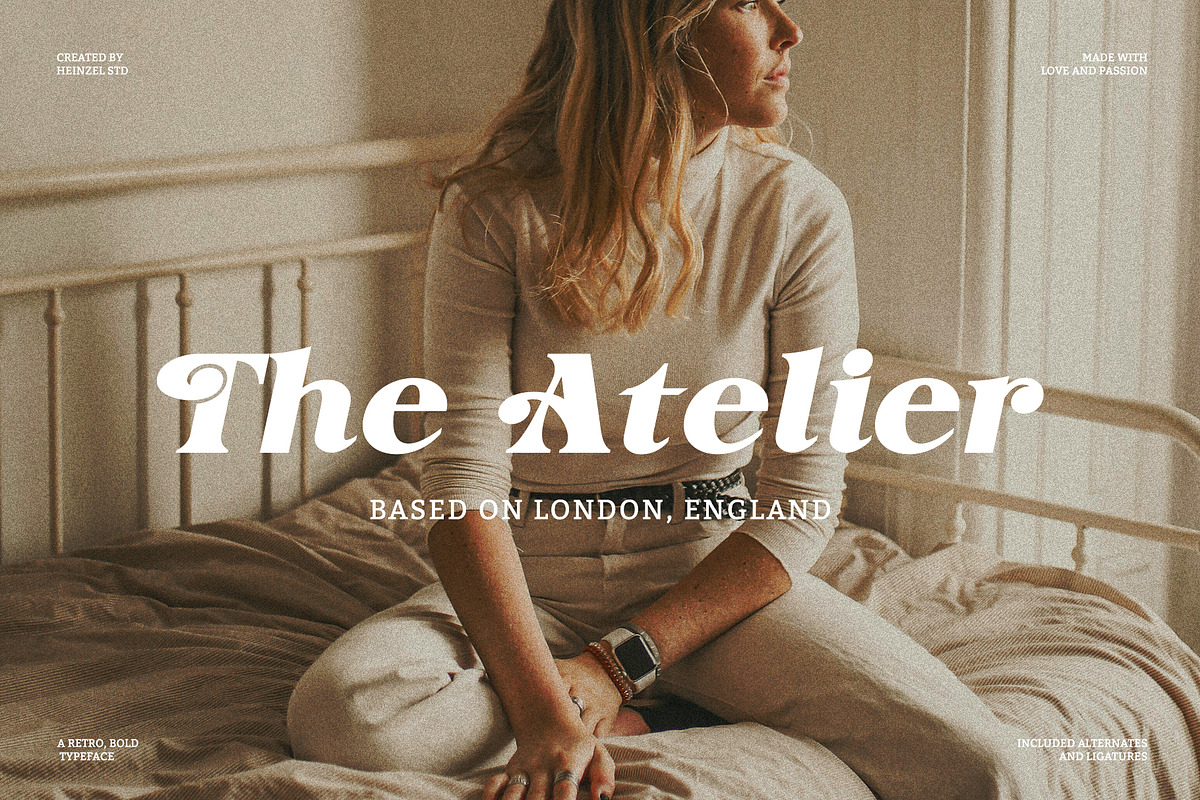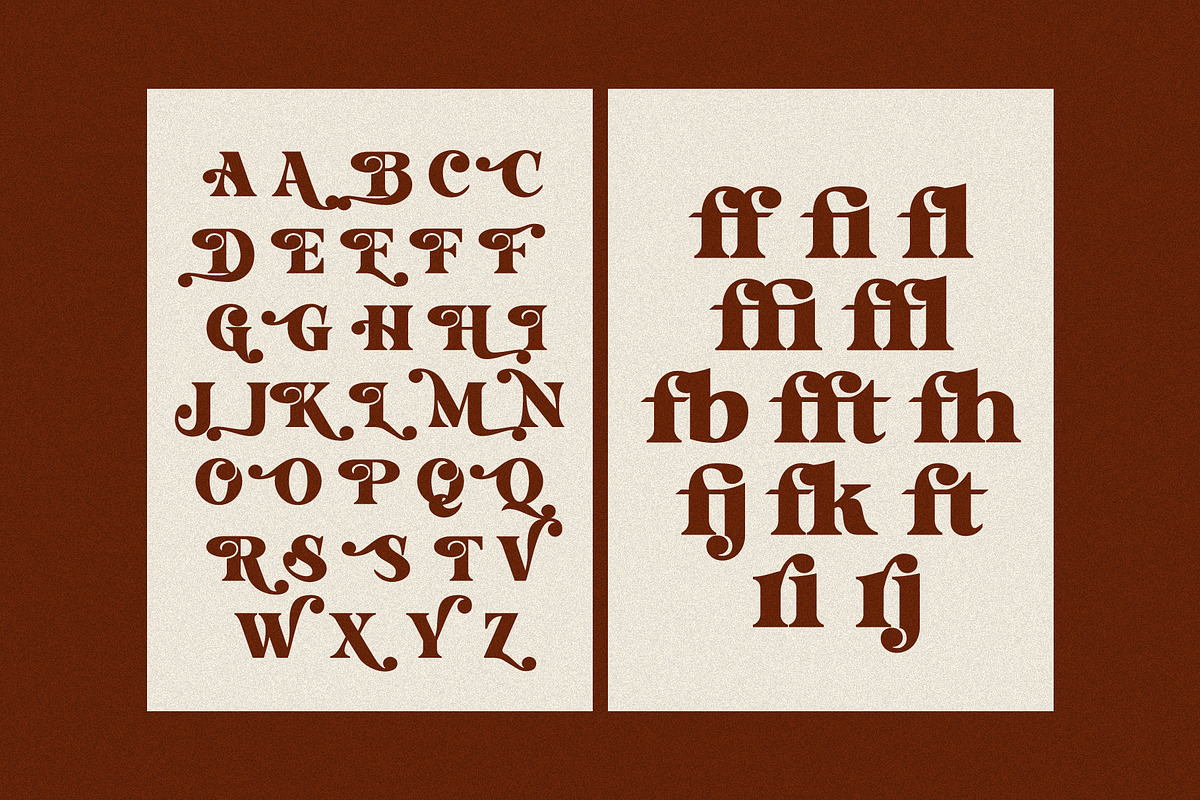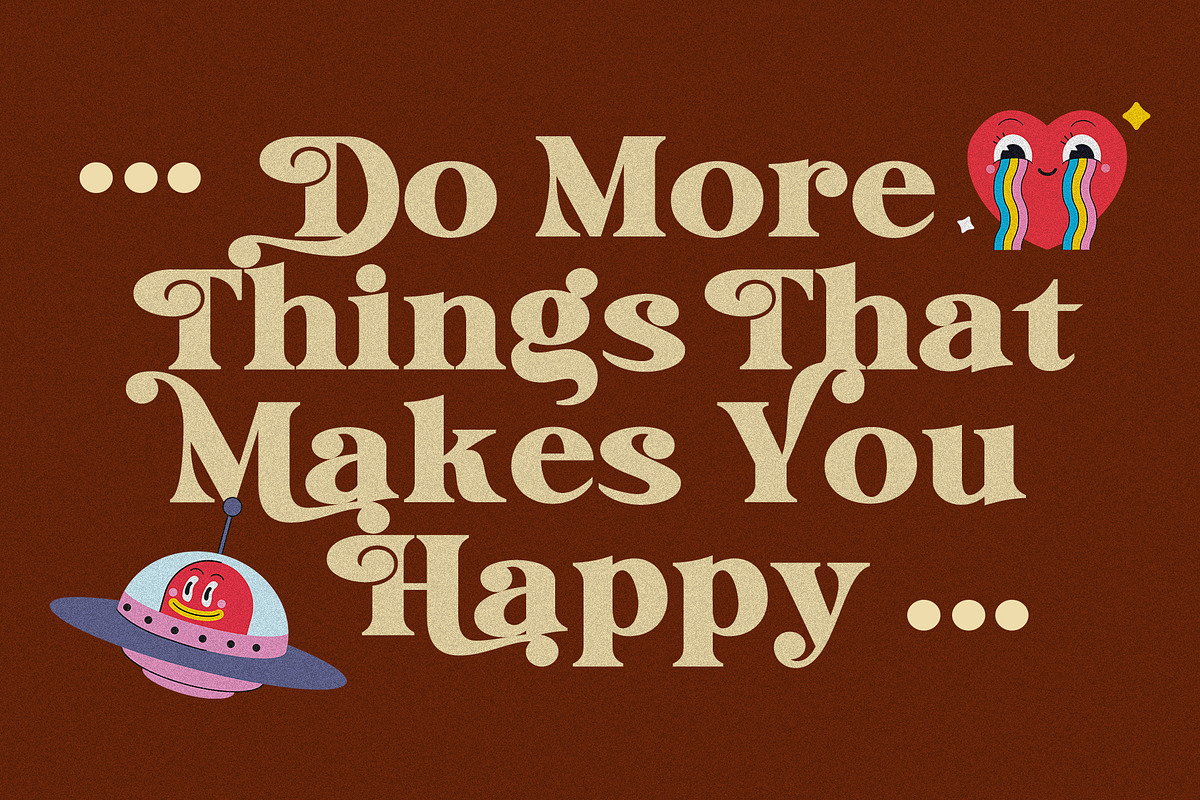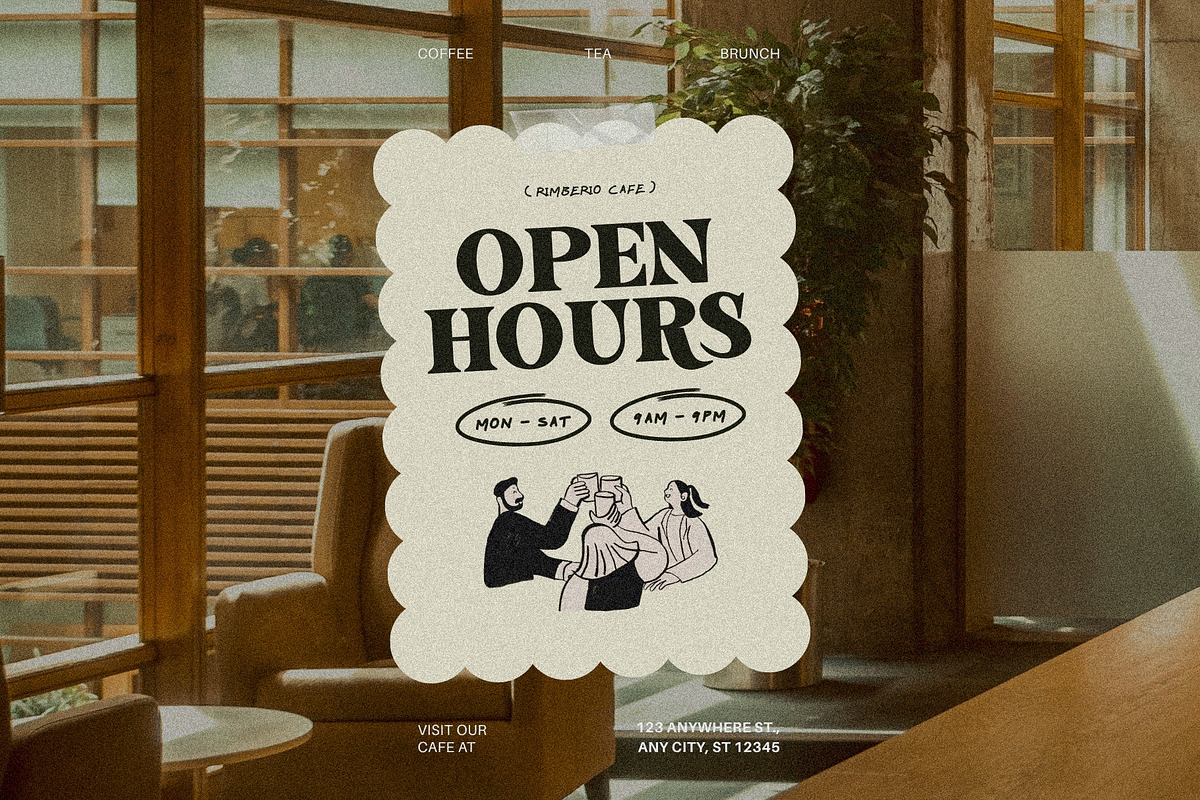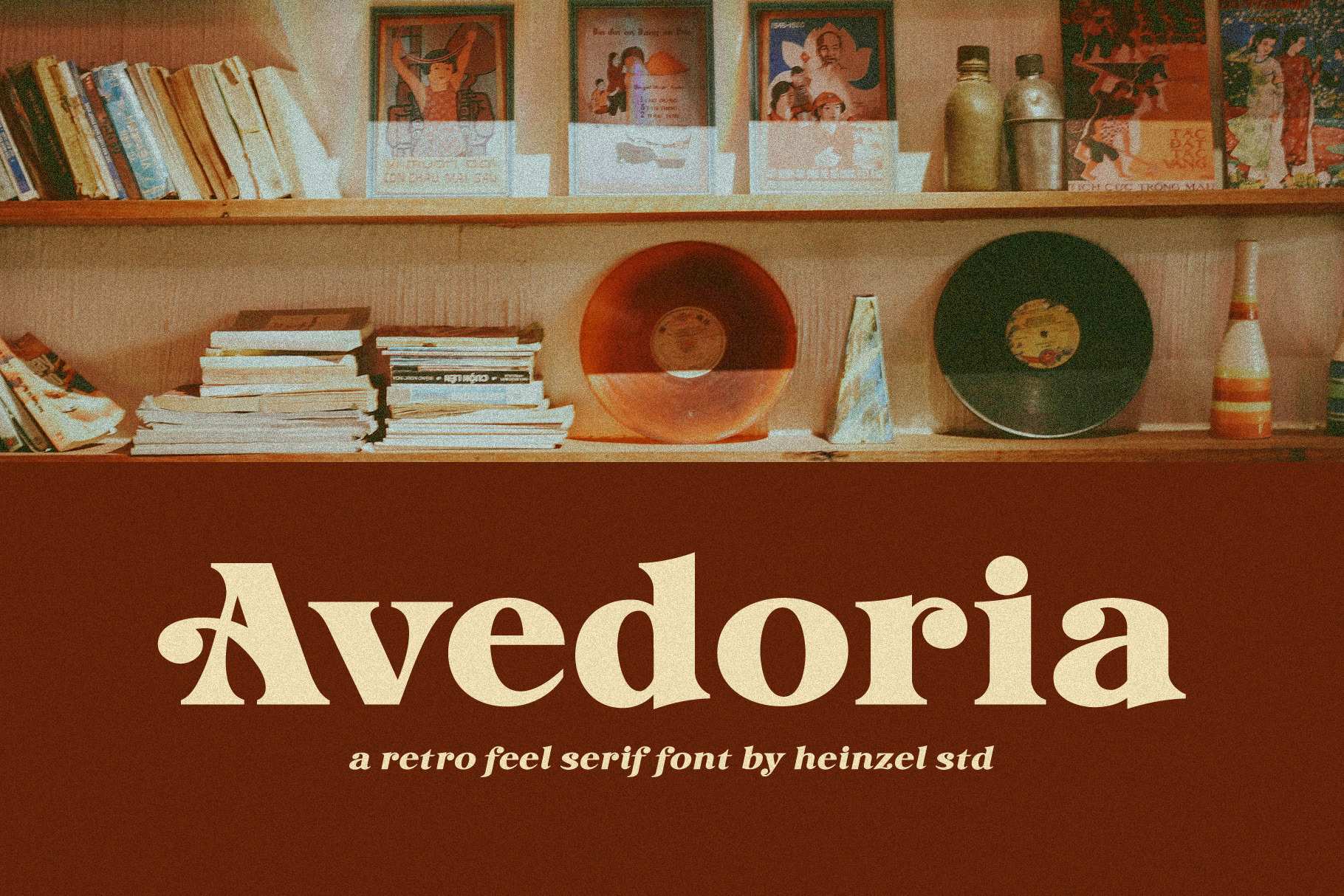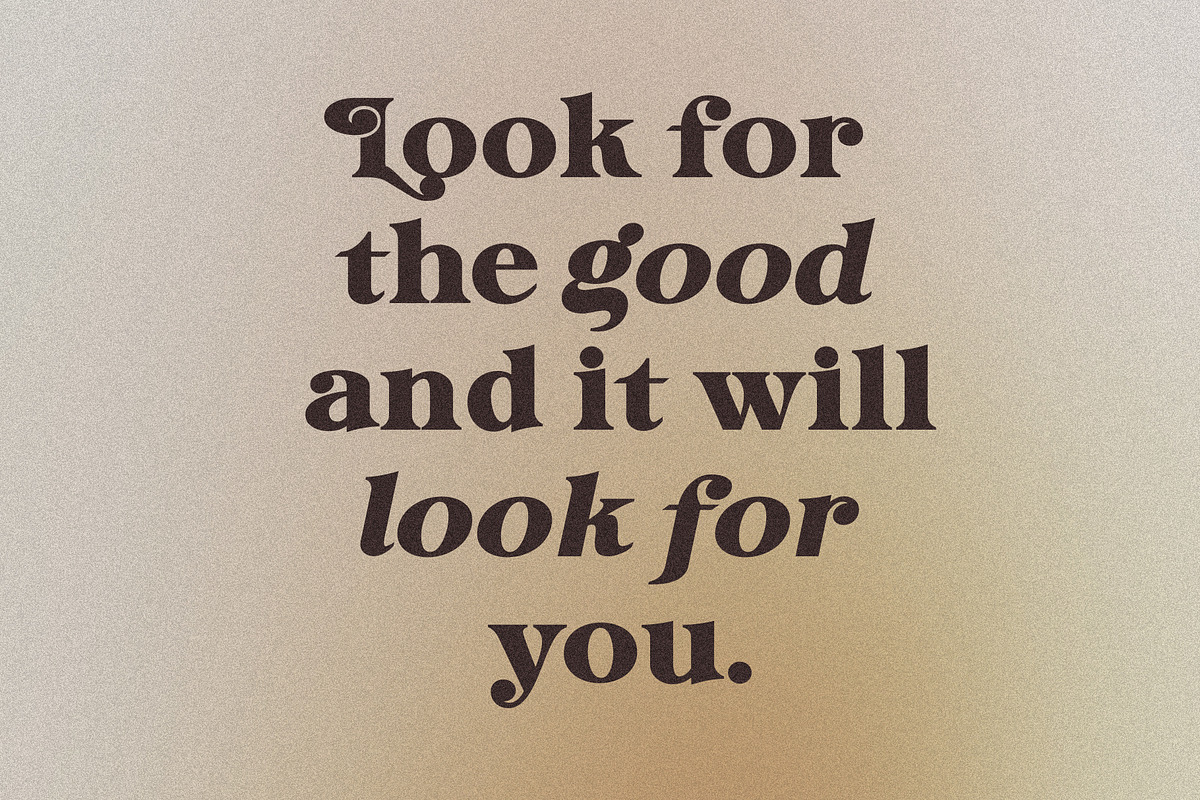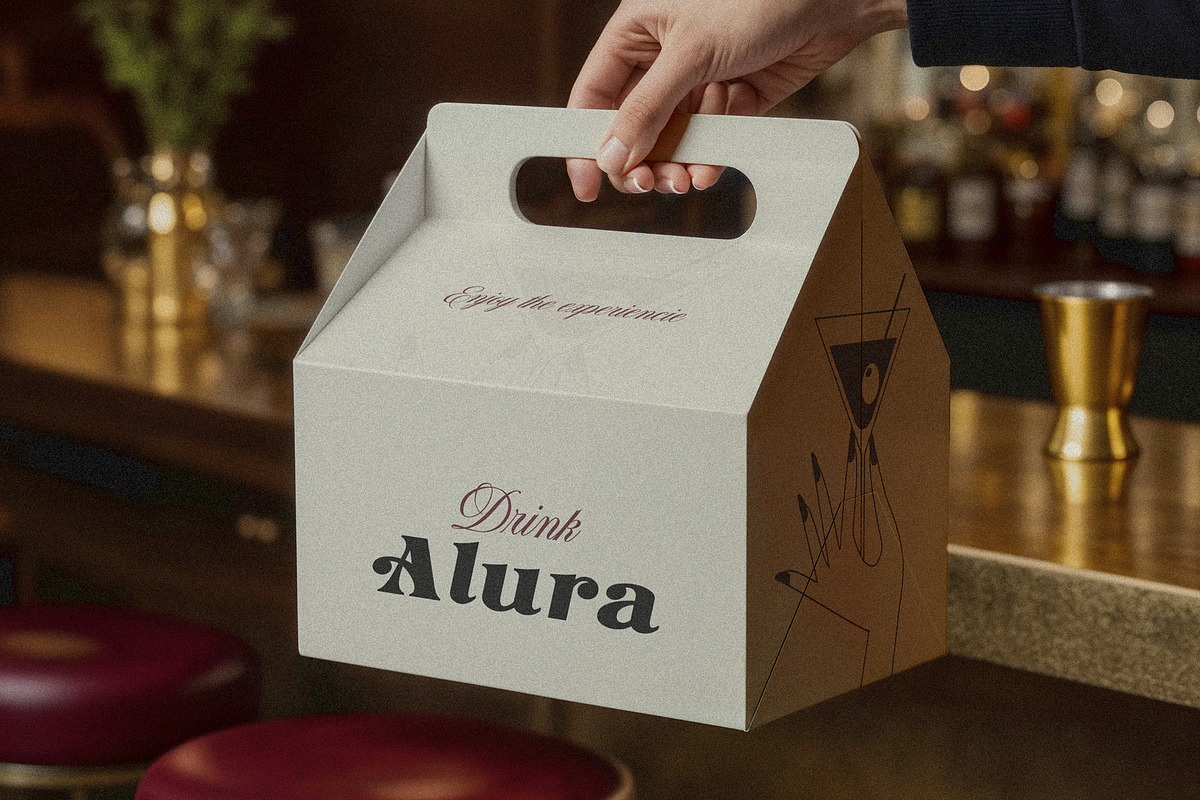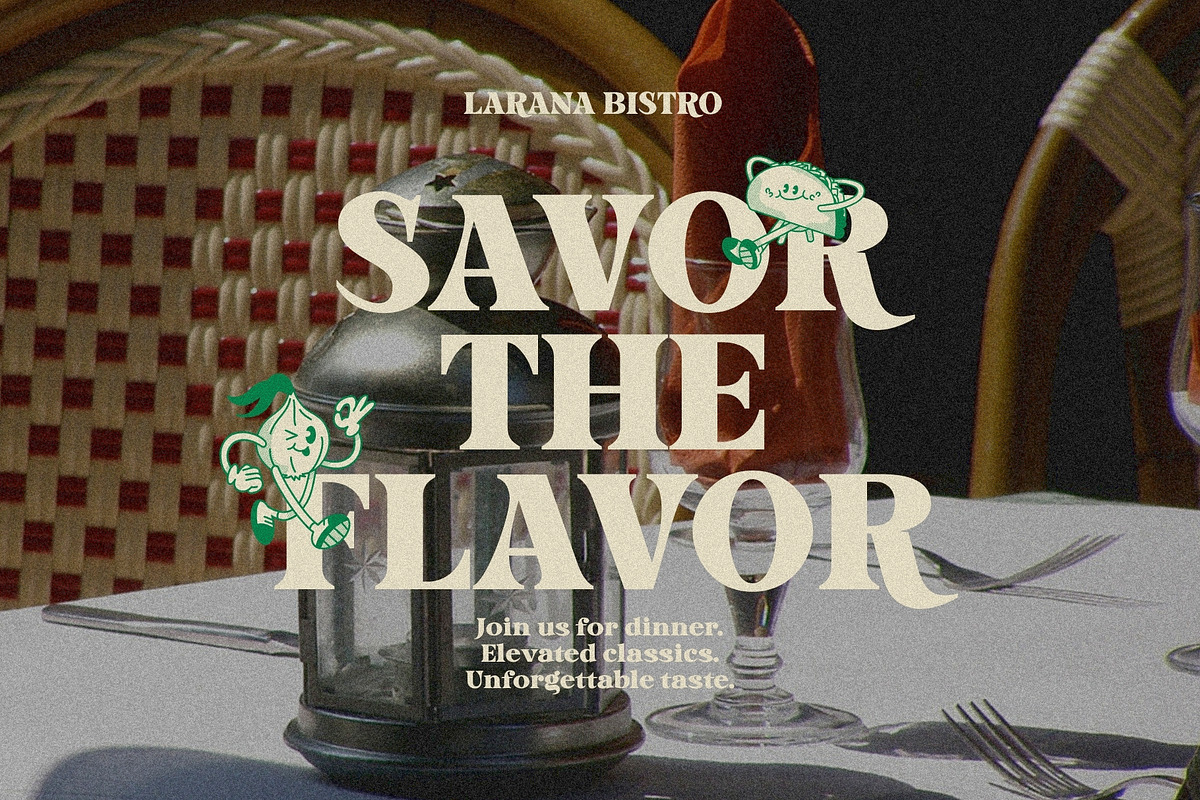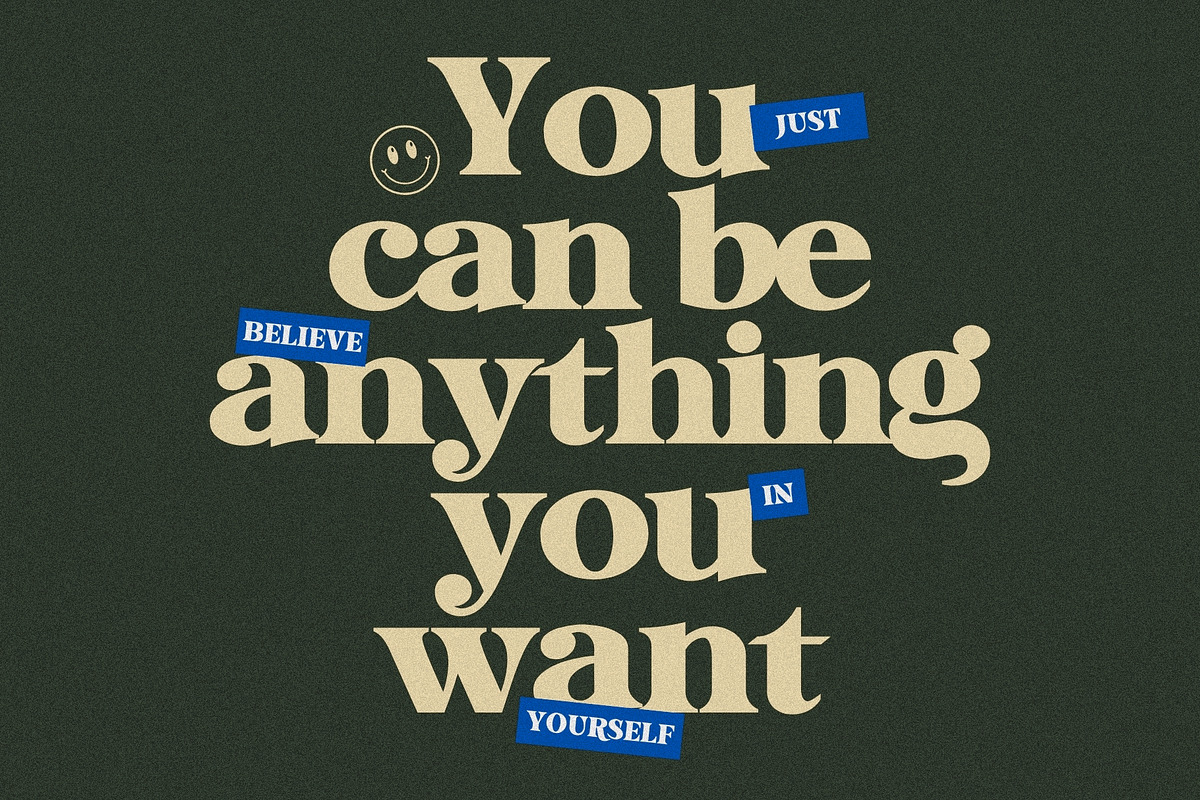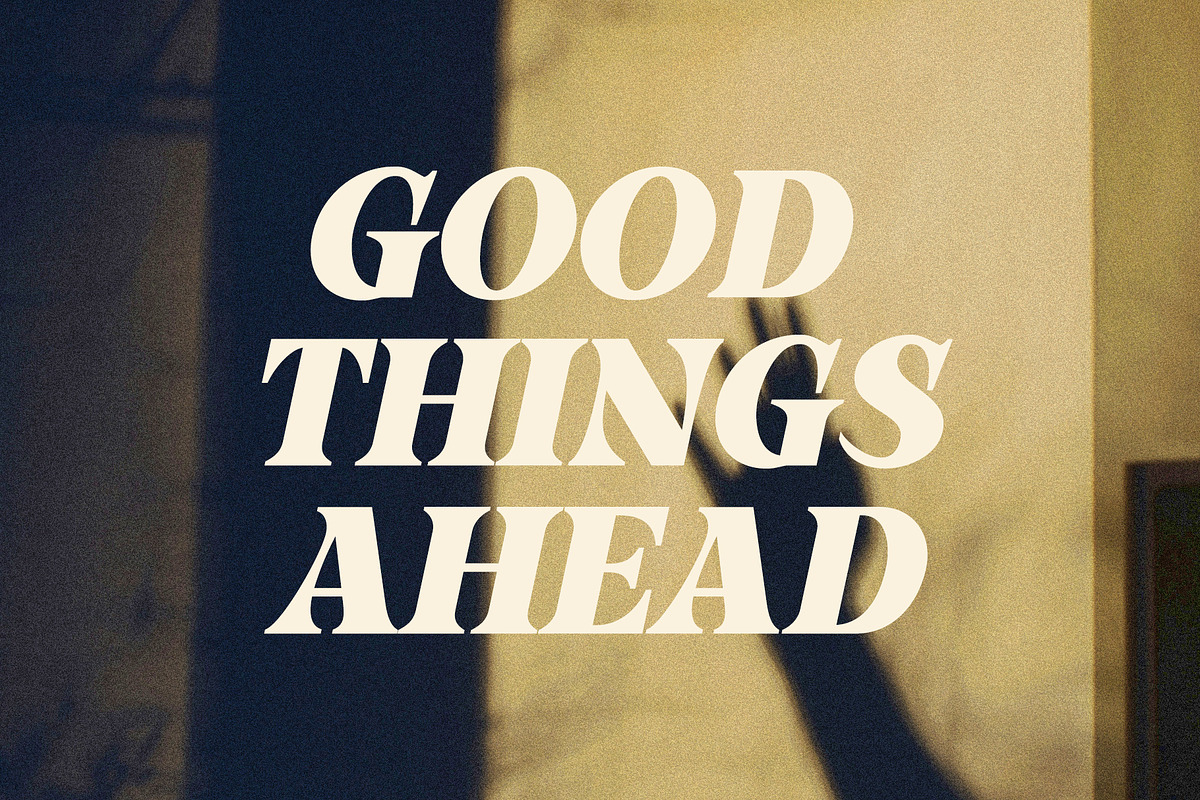
Avedoria Retro Feel Serif Font
Avedoria – Retro Feel Serif Font
Avedoria is a bold retro serif font inspired by vintage editorial typography, classic vinyl-era aesthetics, and nostalgic 70s design culture. Featuring soft curves, dramatic serifs, and stylish letterforms, this typeface brings a warm and timeless personality to branding, logos, posters, packaging, fashion editorials, café menus, album covers, and social media graphics.
Designed with a balance of elegance and retro charm, Avedoria delivers strong visual impact while maintaining readability. Its distinctive characters create a luxurious vintage atmosphere that works beautifully for both modern and classic-inspired projects. Whether you are building a nostalgic brand identity or creating eye-catching headlines, Avedoria adds authentic retro sophistication to every design.
Perfect for creative designers, lifestyle brands, music-themed visuals, boutique packaging, and cinematic typography, Avedoria captures the essence of vintage serif trends that remain highly popular in contemporary design. Retro serif fonts are widely appreciated for their expressive shapes and timeless appeal in branding and editorial design.